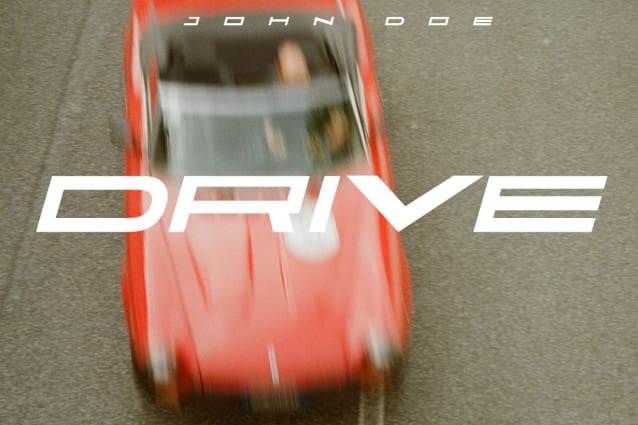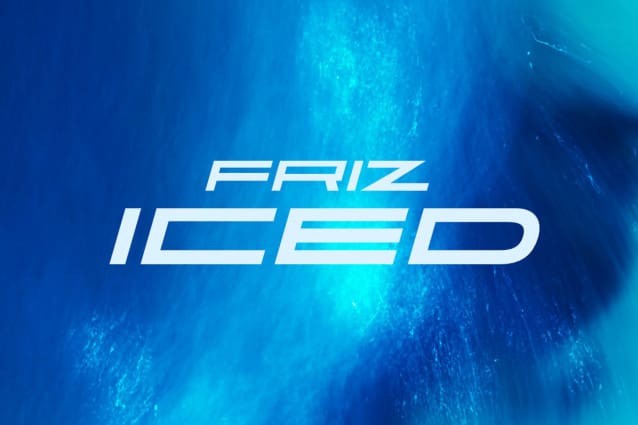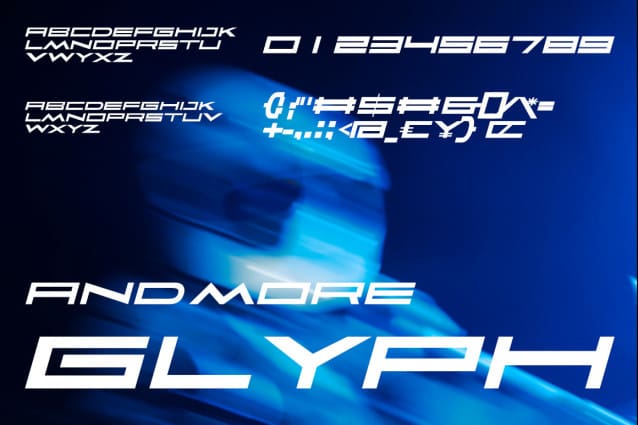
Faqro Extended Expand Italic Font
Faqro Extended Expand Italic Font is a futuristic font inspired by the visual of technology that is found in sports logos, techno design, Sci-Fi movies, games, and gadgets. It is perfect for logos, labels, posters, packaging, books, movies, presentations, games, and much more!